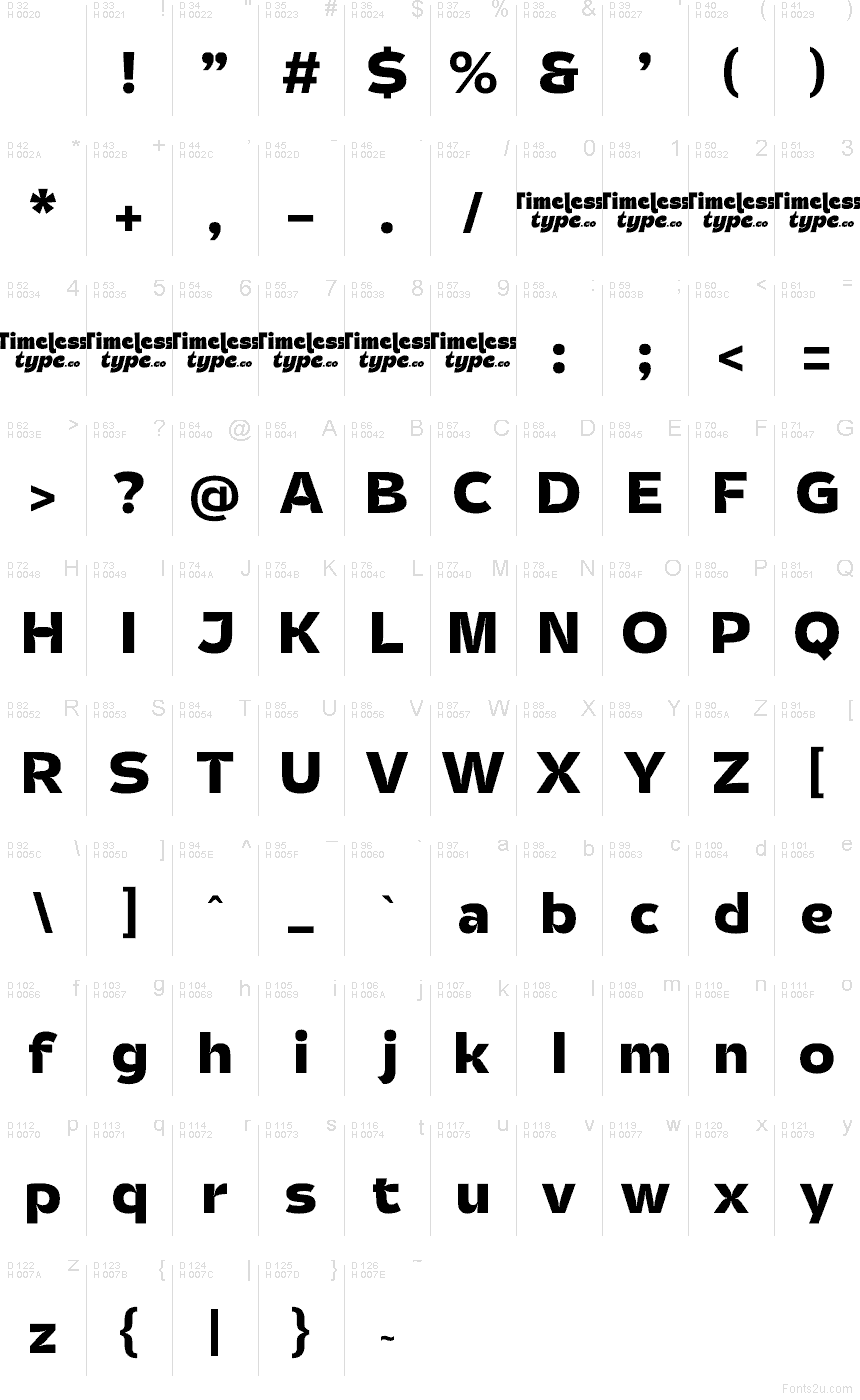
Pastme Rounded, by TimelessType.co, is a free rounded modern display font with big, soft-edged letters and a chunky, almost inflated rhythm. The shapes feel bold and compact, but the deep curves and cut-in joins keep it from turning blunt, giving the wordmark a friendly pop with a slightly retro, poster-like swing.
It fits branding, packaging, music artwork, editorial cover lines, and social graphics where a short phrase needs a broad, cushioned silhouette rather than a sharp one. As a free font, it also makes sense for title cards and oversized initials, because those rounded corners and heavy curves hold attention even in just a few letters.